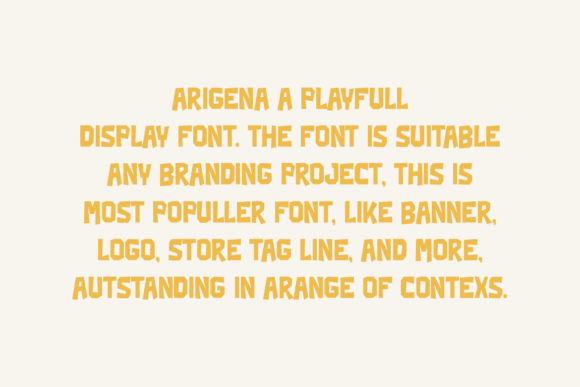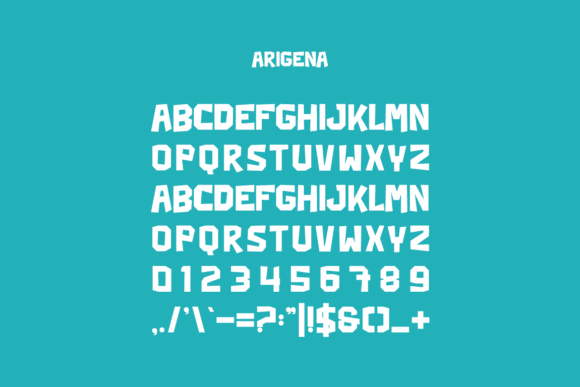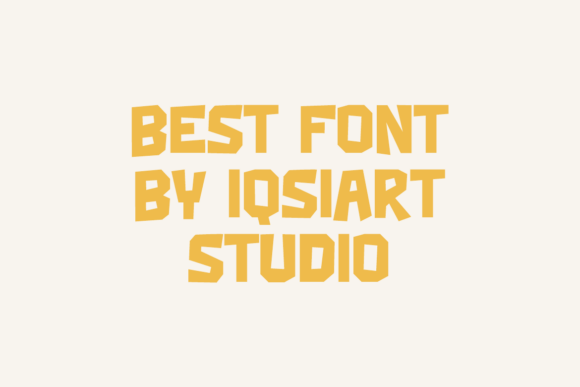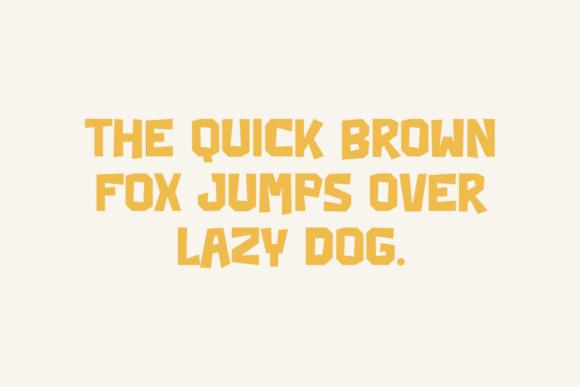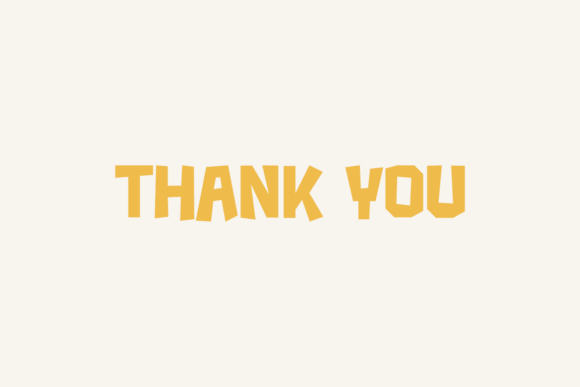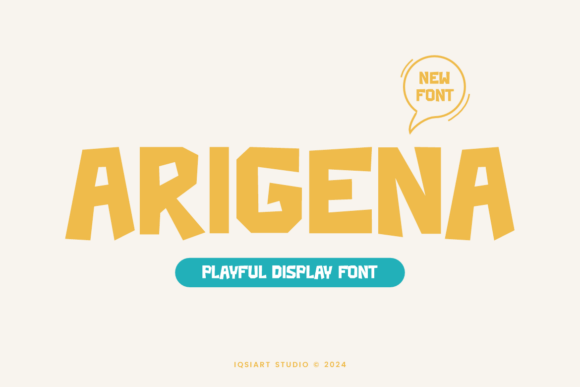
Introducing Arigena Font: The Ultimate Display Font for Bold and Playful Designs
Are you tired of using the same old fonts for your designs? Look no further than Arigena Font, a bold and playful display font that’s sure to add a burst of energy and fun to your projects. With its unique geometric shapes and dynamic letterforms, Arigena is perfect for eye-catching headlines, branding projects, posters, and creative designs.
The Unique Features of Arigena Font
Arigena Font stands out from the crowd with its distinctive geometric shapes and dynamic letterforms. The font’s bold and playful style is perfect for making a statement, and its lively and vibrant aesthetic is sure to grab attention. Whether you’re designing a logo, creating a poster, or crafting a social media graphic, Arigena Font is the perfect choice for adding a touch of personality to your design.
Perfect for Eye-Catching Headlines and Branding Projects
Arigena Font is specifically designed for use in headlines and branding projects, where its bold and playful style can really shine. The font’s unique geometric shapes and dynamic letterforms make it perfect for creating eye-catching logos, taglines, and marketing materials that will help your brand stand out from the competition.
Why Designers and Crafters Love Arigena Font
Designers and crafters love Arigena Font for its versatility and ease of use. The font is perfect for a wide range of design projects, from posters and flyers to social media graphics and branding materials. Plus, its bold and playful style makes it easy to add a touch of personality to any design.
Key Benefits of Using Arigena Font
- Unique and eye-catching design: Arigena Font’s distinctive geometric shapes and dynamic letterforms make it perfect for creating designs that stand out from the crowd.
- Perfect for headlines and branding projects: The font’s bold and playful style makes it ideal for use in headlines, logos, and branding materials.
- Versatile: The font can be used for a wide range of design projects, from posters and flyers to social media graphics and branding materials.
- Use it as a headline font: Arigena Font is perfect for use in headlines, where its bold and playful style can really shine.
- Pair it with a complementary font: For body text, pair Arigena Font with a complementary font that’s clean and easy to read.
- Experiment with different colors and textures: Arigena Font looks great in a variety of colors and textures, so don’t be afraid to get creative and try out different effects.
Arigena Font is a bold and playful display font that’s perfect for designers and crafters who want to add a touch of energy and fun to their designs. With its unique geometric shapes and dynamic letterforms, this font is sure to grab attention and make your message stand out. Whether you’re designing a logo, creating a poster, or crafting a social media graphic, Arigena Font is the perfect choice for adding a touch of personality to your design.